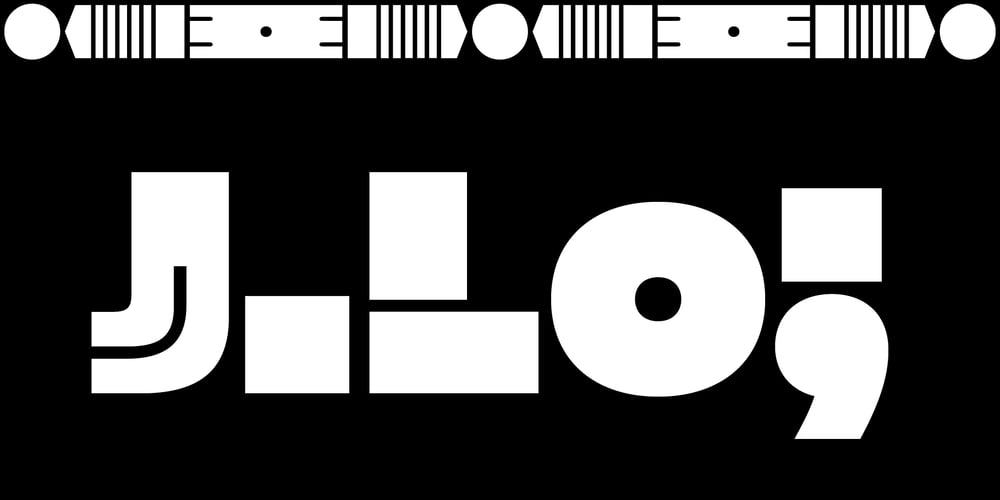
Joc
Joc font
Joc Font Family was designed by Sabina Chipară and published by Type-Ø-Tones. Joc contains 1 styles and family package options. The first letters of Joc Display typeface were designed to accompany Sara San Gregorio’s exhibition: Juguetoría a l’altura del Joc curated by Helena Ayuso Moli y Anna Roigé Barrull at La Panera Art Center in LLeida, Spain. The exhibition playground encourages children from age 5 to 9 to create their own toys by combining together different shapes. These shapes were the main inspiration for the concept of the letters and have been translated into symbols for the character set.The name of the typeface itself is a link between the same matching word in Catalan and Romanian – Joc = Game. A description of the personality of the typeface, the place where its’ design was born and Sabina’s native roots.